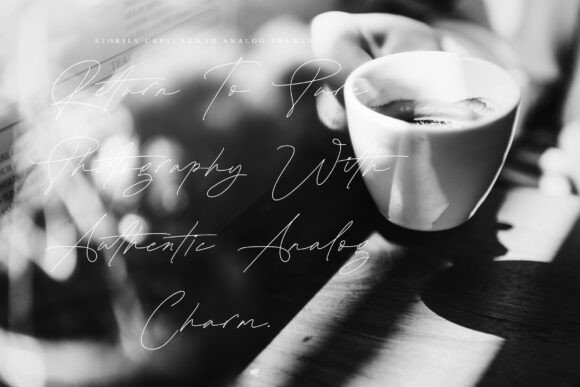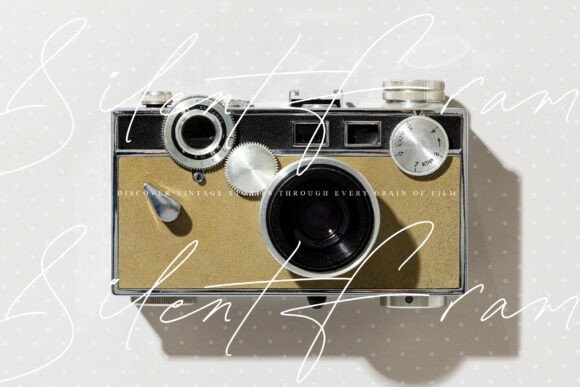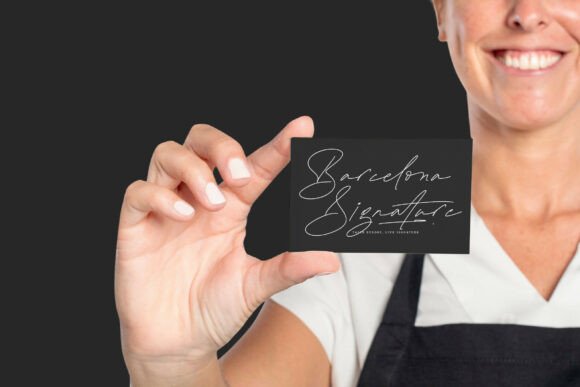
Introduction to Plamstimes Font
As a designer, you know that finding the perfect font can make or break a creative project. Whether you’re working on a branding campaign or a social media graphic, the right font can elevate your design and leave a lasting impression. I still remember the thrill of stumbling upon the perfect font for a project, and that’s exactly what I’m excited to share with you today – the stunning Plamstimes Font.
With its elegant script design and modern twist, the Plamstimes Font is a game-changer for any designer looking to add a touch of sophistication to their work. Whether you’re working on a logo, invitation, or packaging design, this high-quality font is sure to deliver. And the best part? It’s available for free download, making it a valuable resource for designers of all levels.
Key Features of Plamstimes Font
- High-quality design: Plamstimes Font is a professional and stylish font perfect for any creative project.
- Unique characteristics: The font features a unique blend of modern and vintage elements, making it perfect for creative projects that require a touch of elegance and sophistication.
Honest Review: Plamstimes Font
As a designer, I’m always on the lookout for unique and high-quality design resources to elevate my creative projects. The Plamstimes Font caught my attention with its stunning aesthetic and versatility. ✨
Here are some pros and cons I’ve observed:
- ✨ Highly customizable and versatile, making it suitable for a wide range of creative projects.
- ✨ Beautifully crafted with a unique aesthetic that adds a touch of sophistication to any design.
- ⚠️ Limited font sizes and weights may restrict its use in more complex designs.
Common Use Cases for Plamstimes Font
Plamstimes Font is ideal for a variety of creative projects, including logos, business cards, and marketing materials. Its high-quality design and transparent background make it perfect for use in presentations, social media graphics, and other visual content.